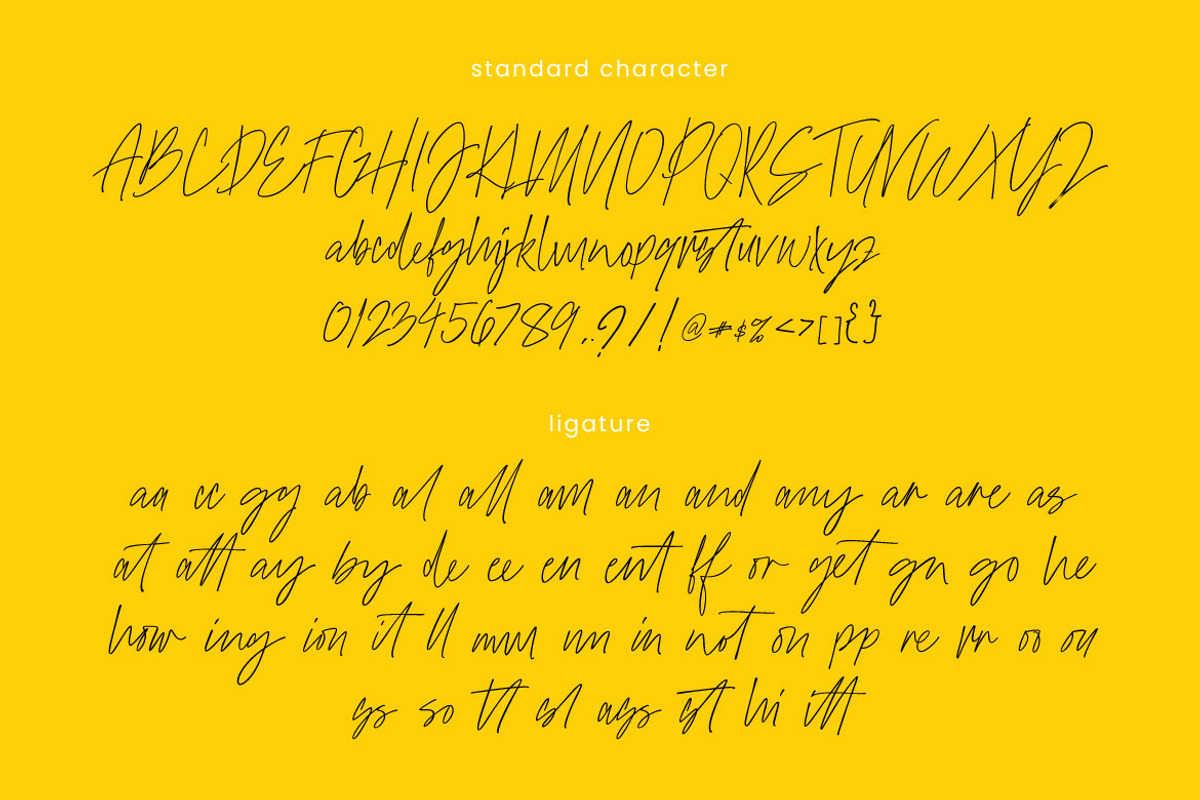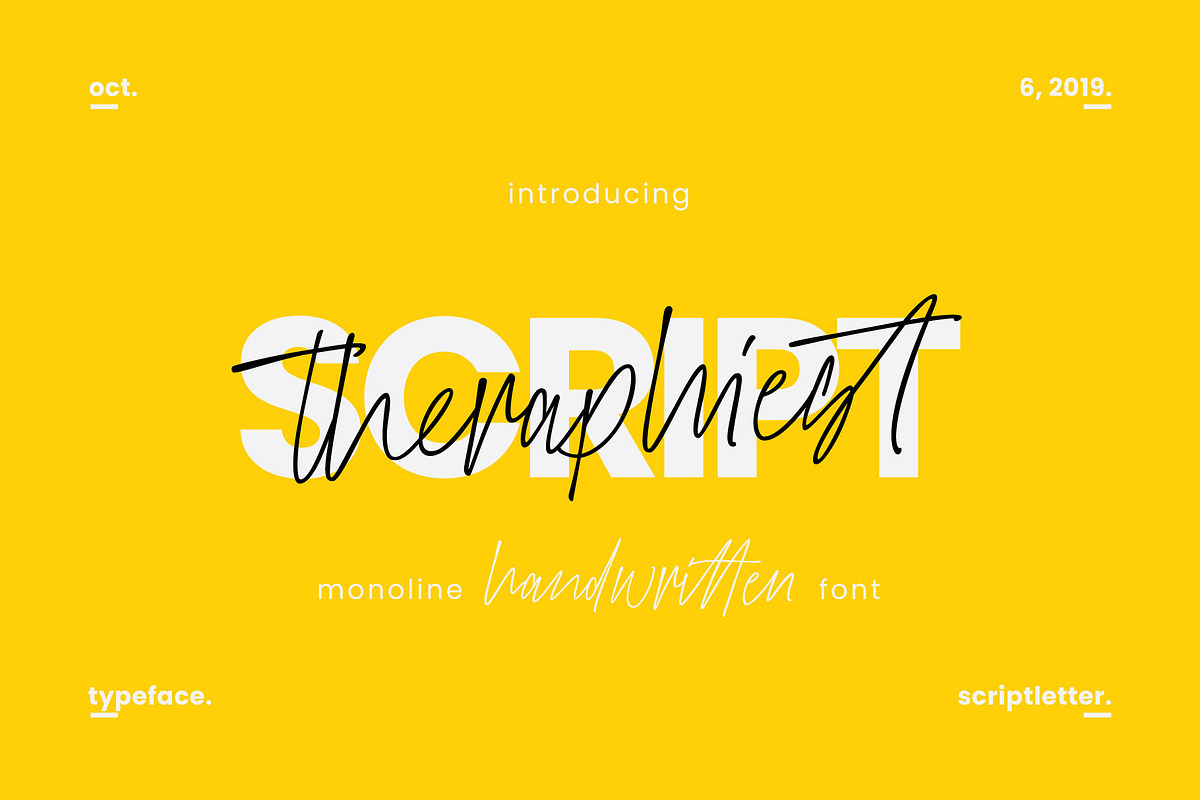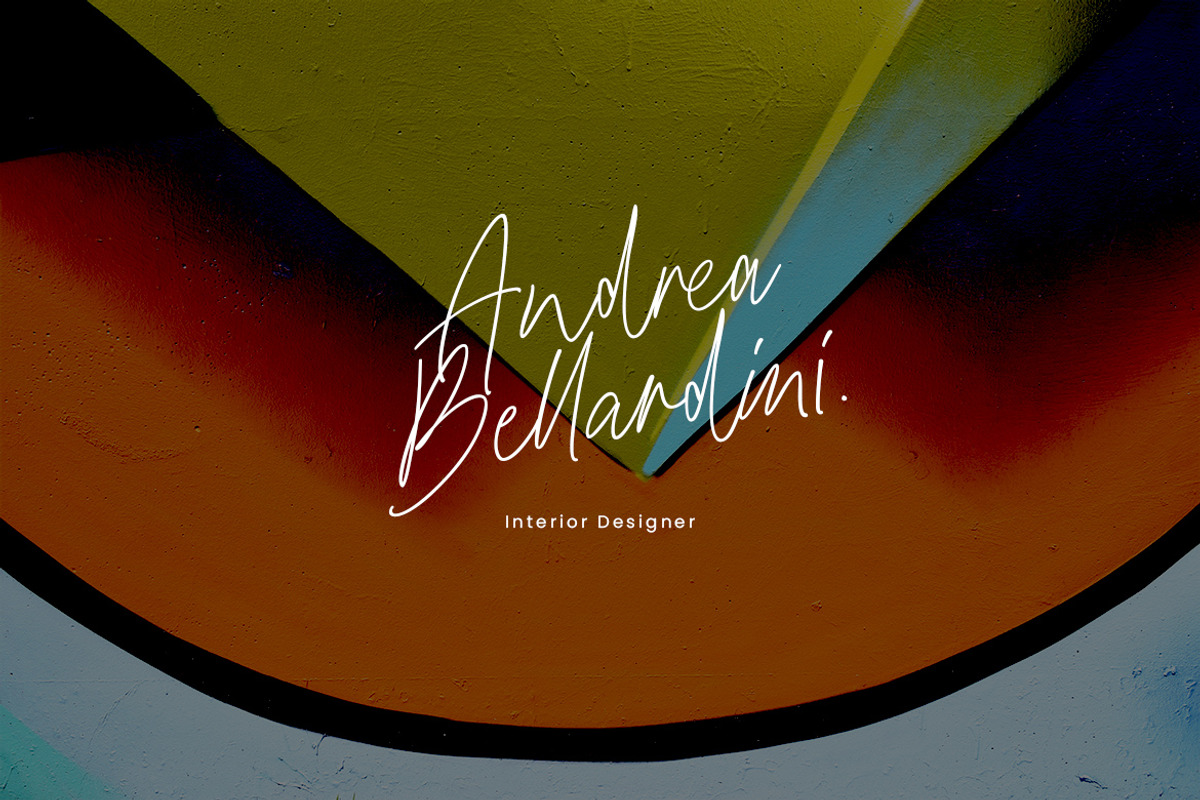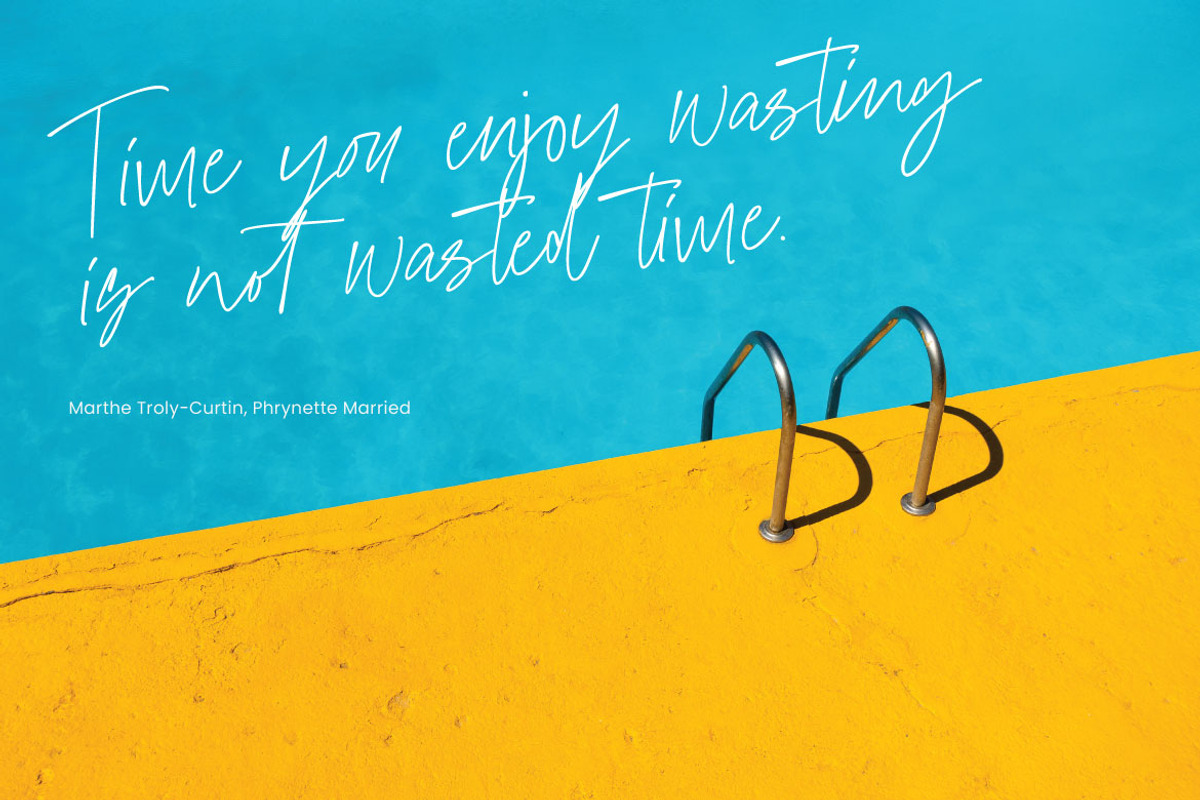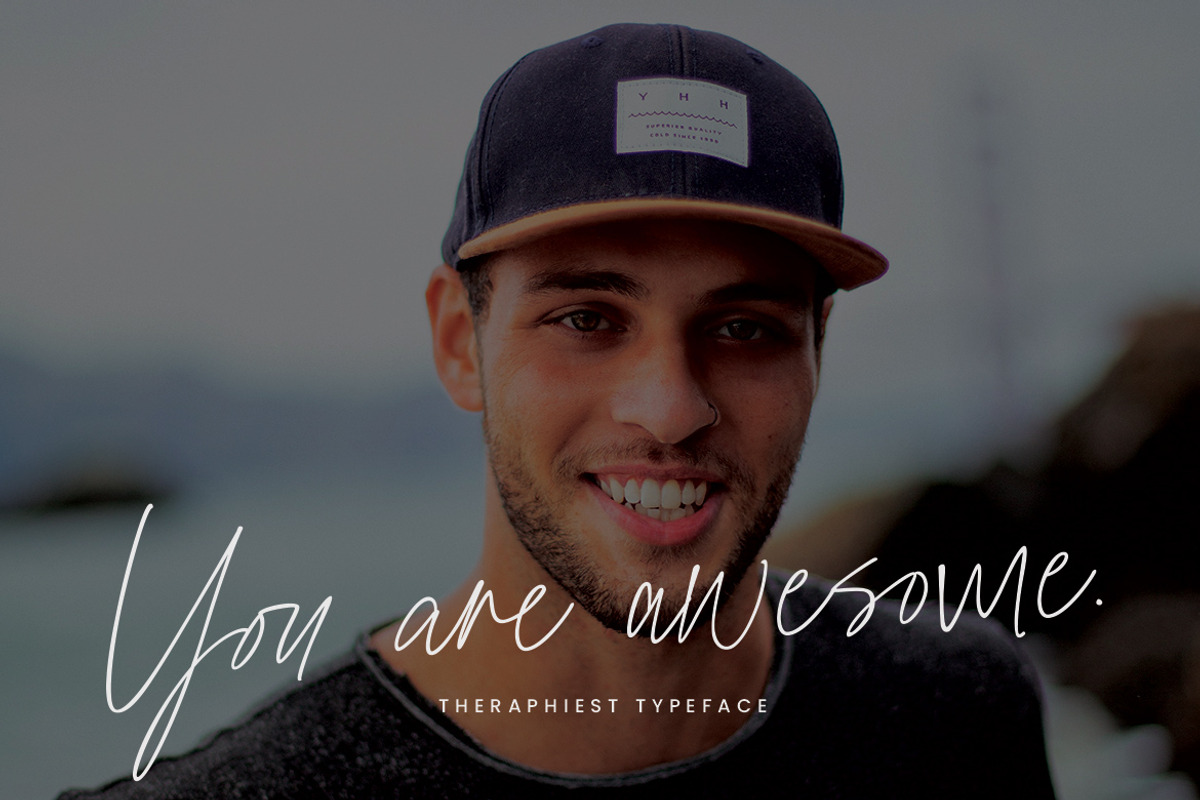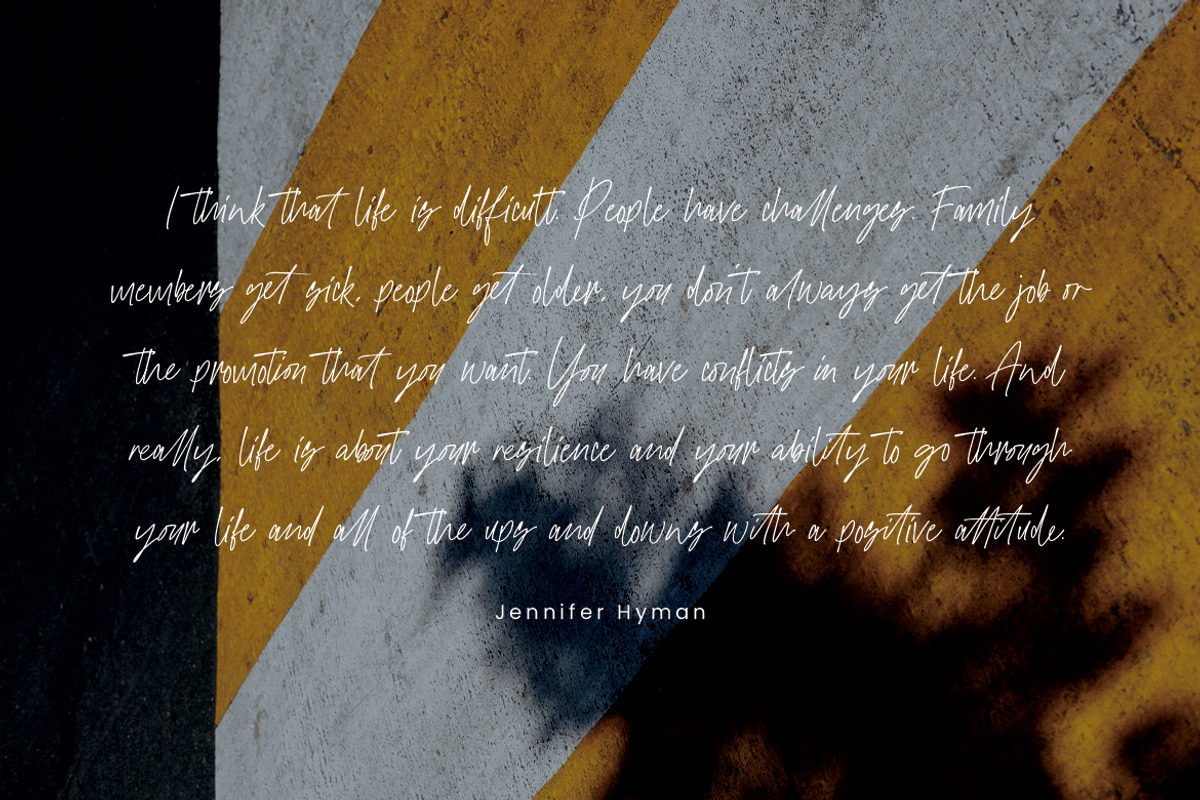
Theraphiest Font
Introducing: Theraphiest Font is a handwritten font. The style of handwriting and irregular but still elegant, and you will enjoy to use this font style.
Theraphiest Font is perfect for branding projects, homeware designs, product packaging - or simply as a stylish text overlay to any background image.
Why Theraphiest Font is worth a look
Theraphiest Font by Thirtypath Studio fits naturally into Branding, posters, packaging, typography.